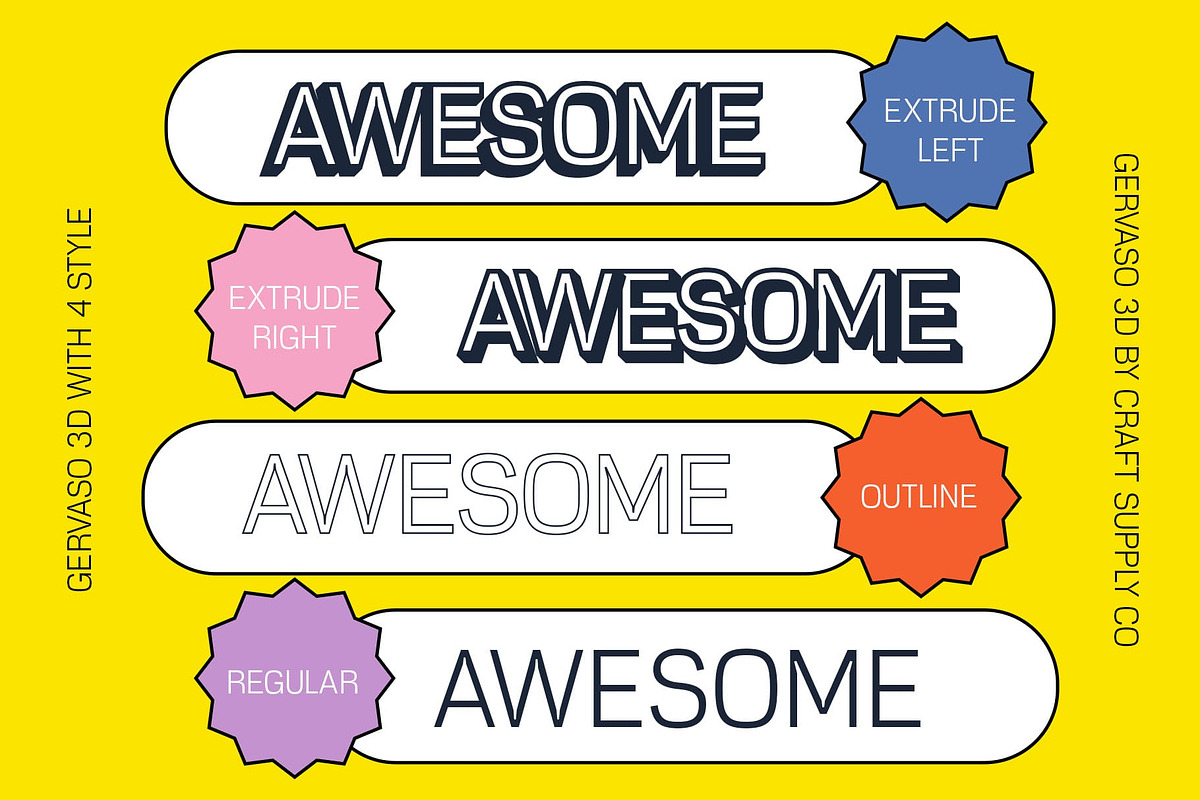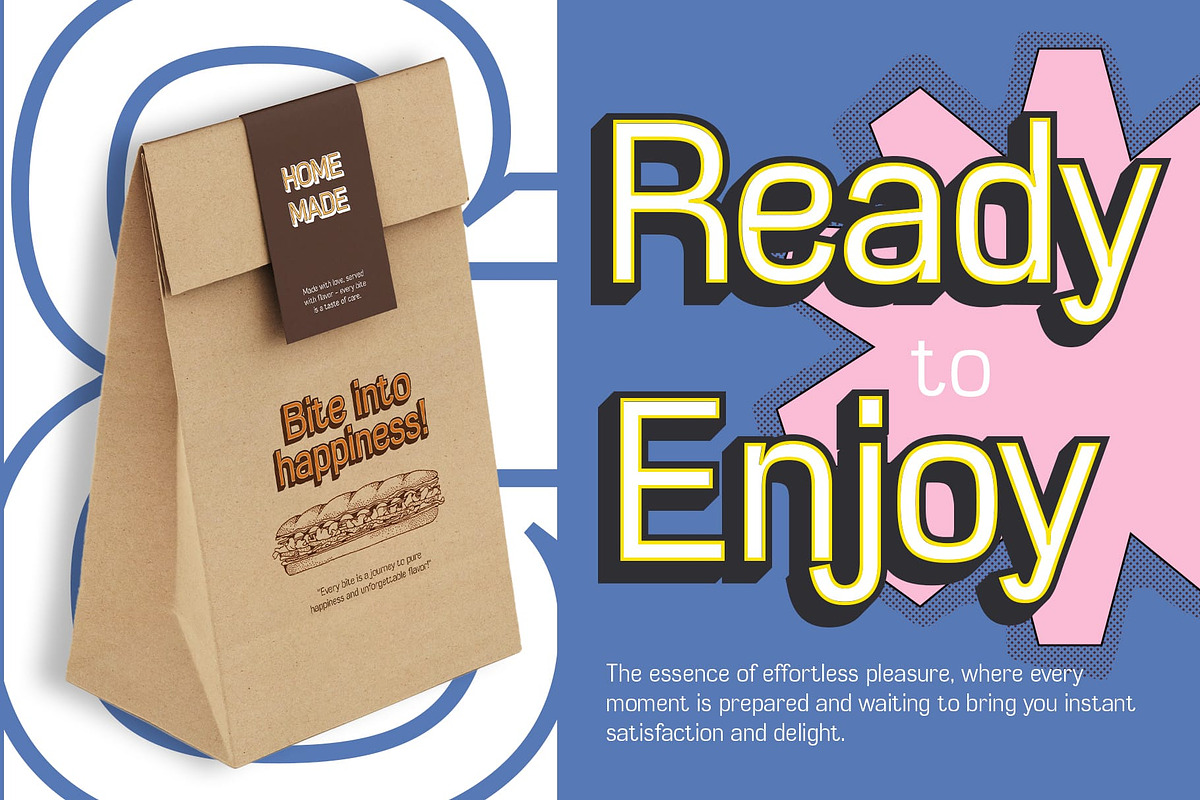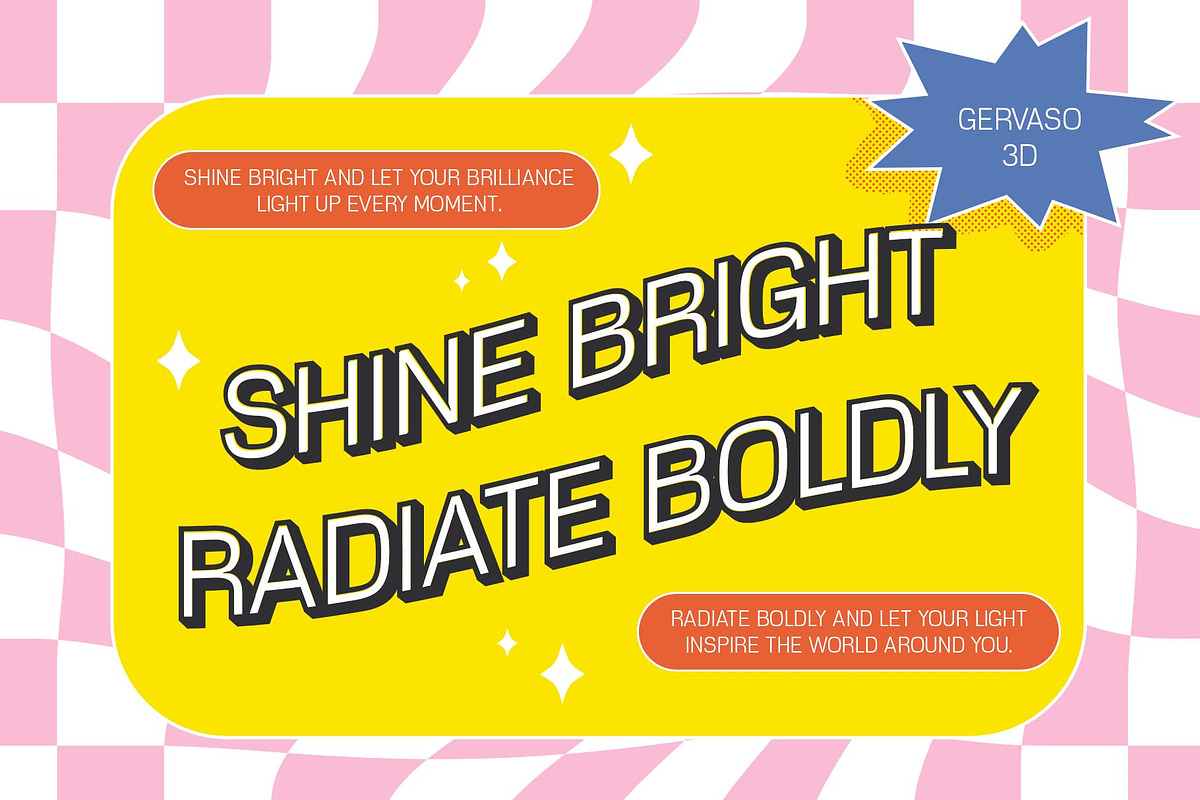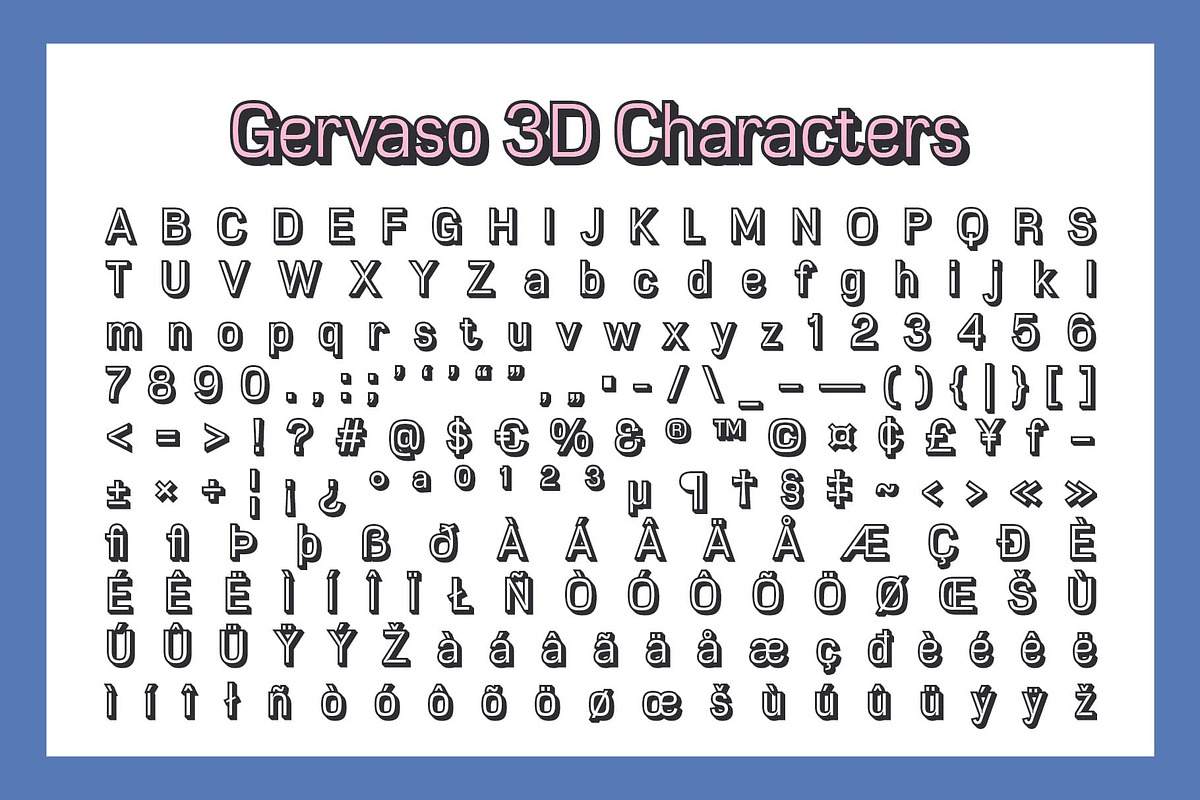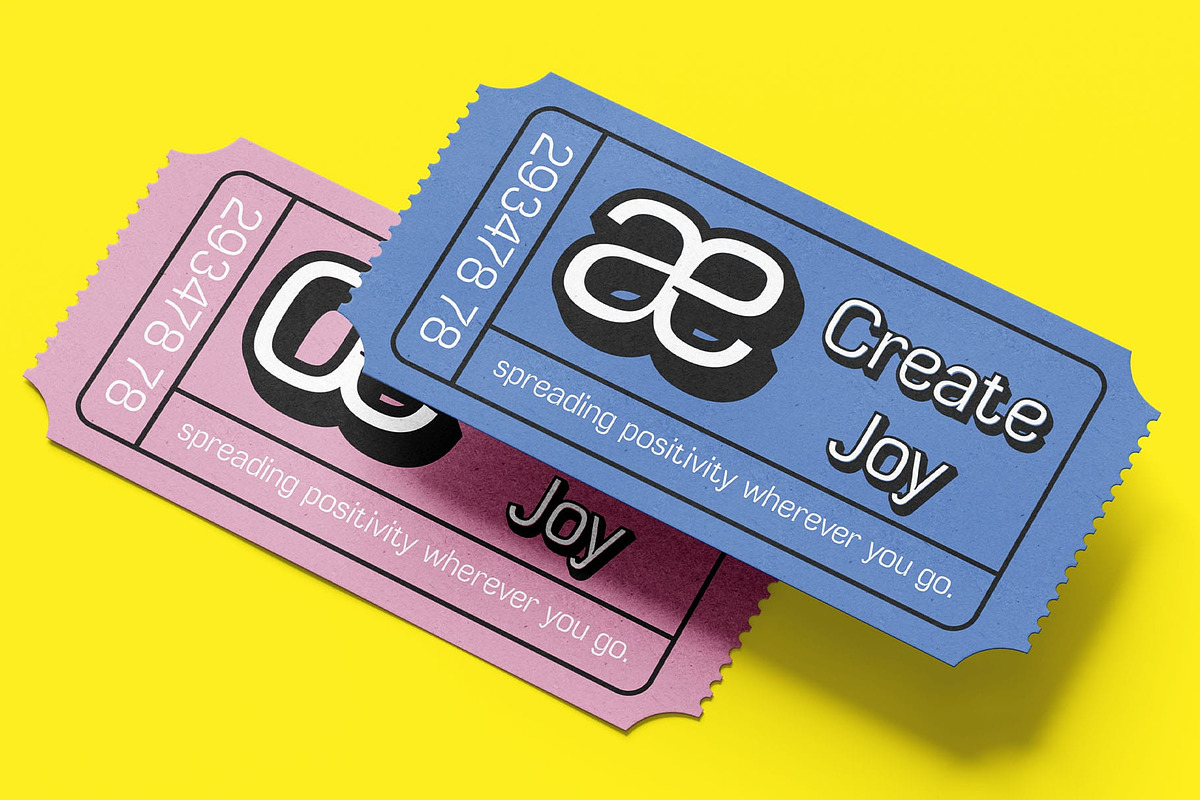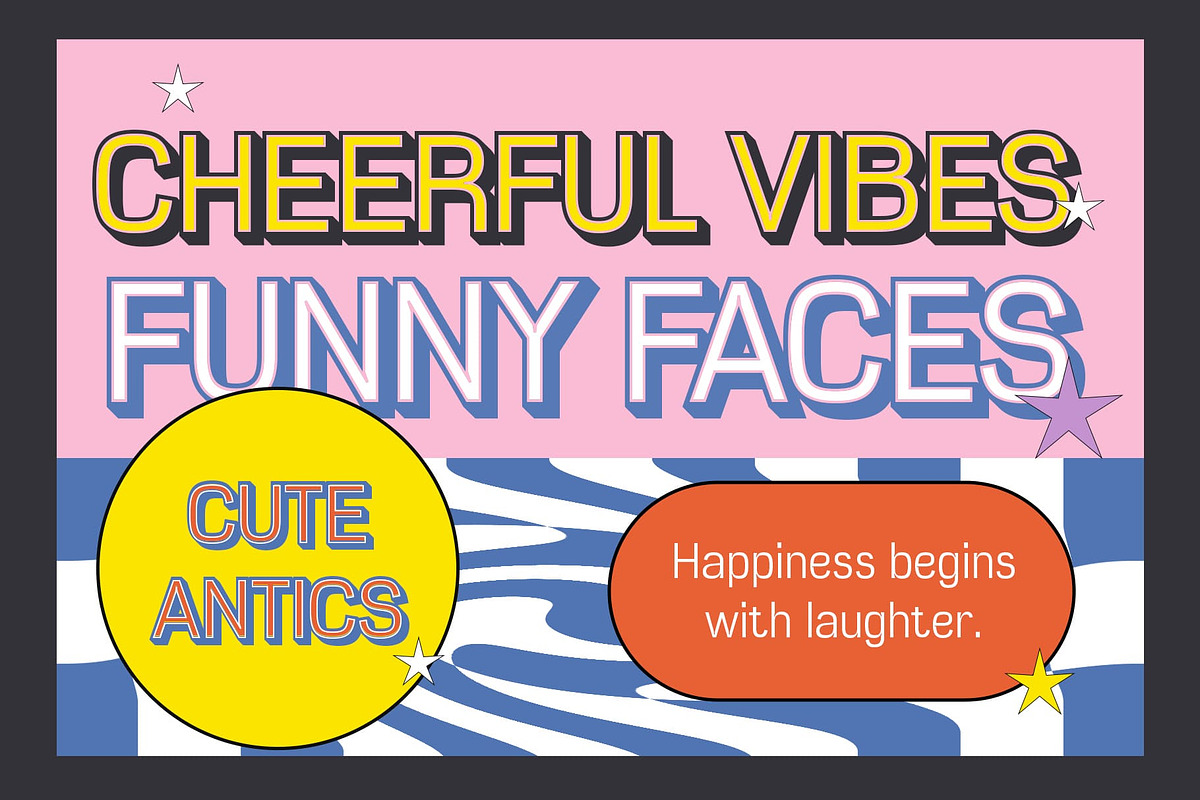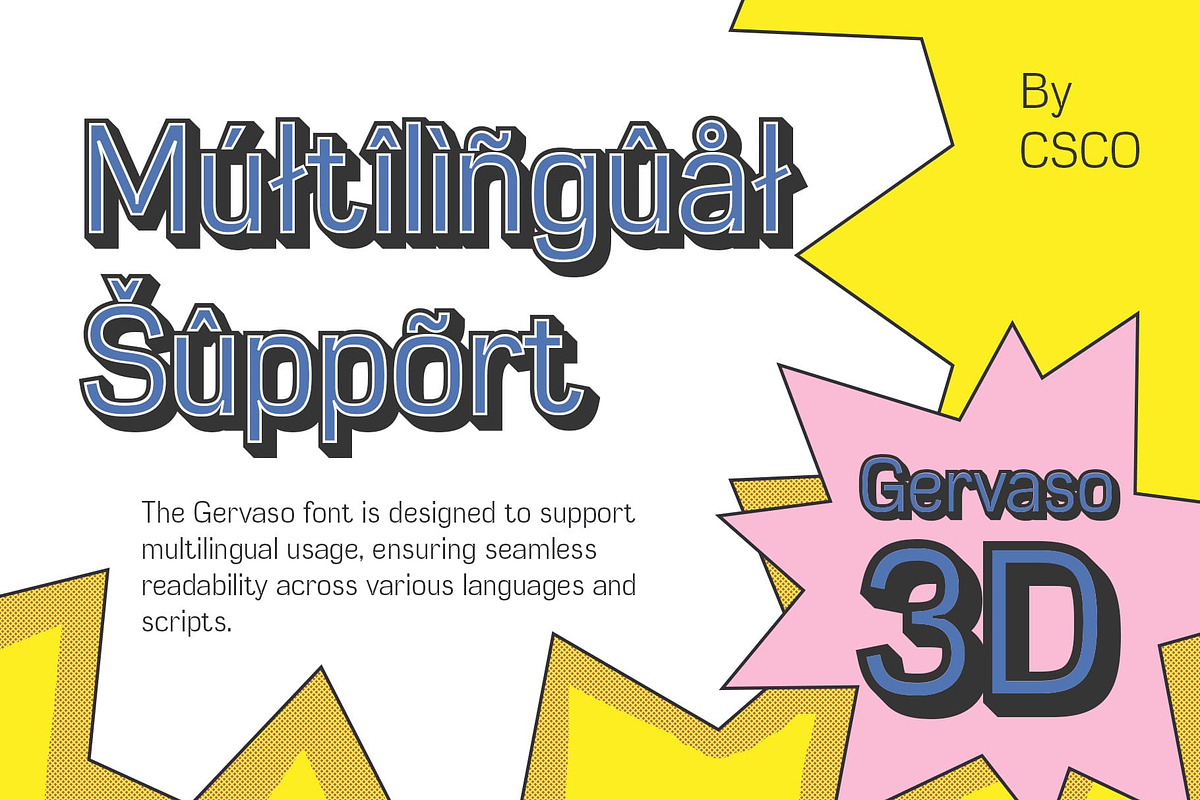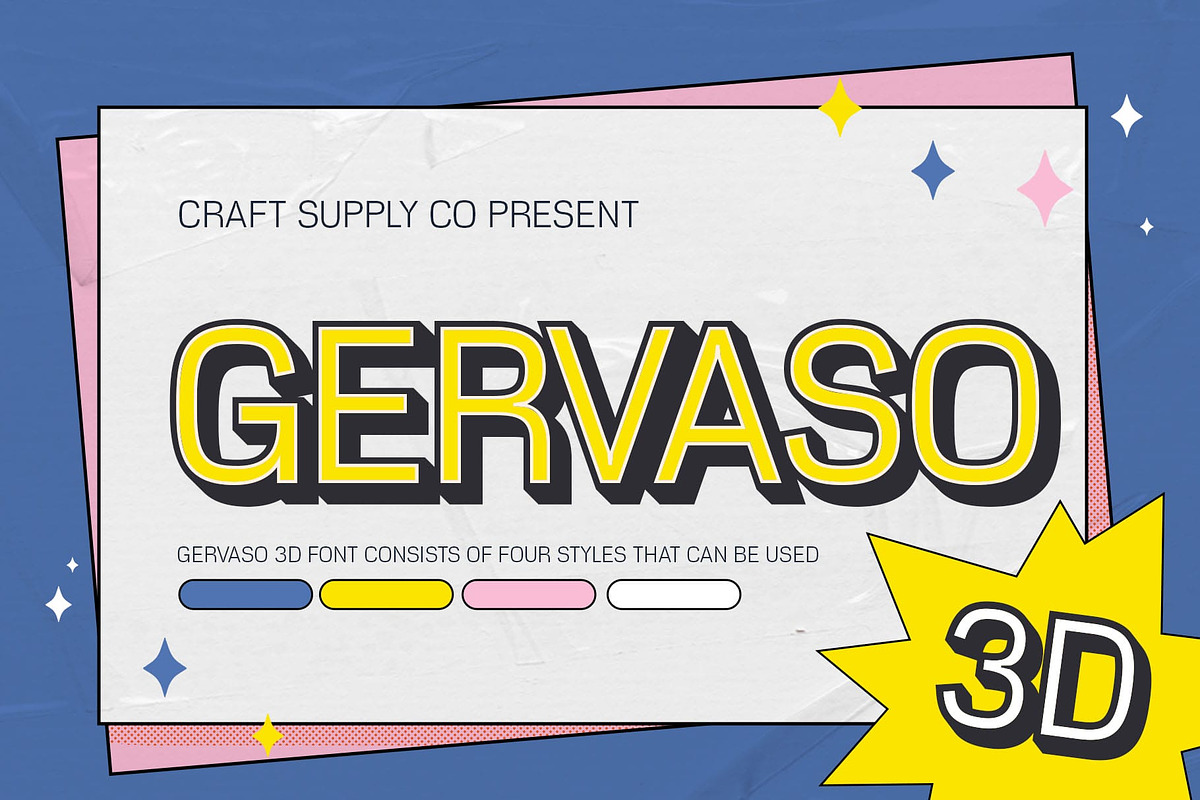
Gervaso 3D
Gervaso 3D Font: Bold and Futuristic Impact
Geometric Sans-Serif with a Bold Presence Gervaso 3D is a modern sans-serif font characterized by geometric and grotesque forms, delivering a clean, sharp aesthetic with a striking visual impact. The combination of straight lines and angular curves gives this font a robust, contemporary feel, perfect for making a bold statement.
Striking 3D Effect for Enhanced Dimension The bold 3D effect elevates Gervaso 3D, adding dynamic depth and dimensionality to each character. This striking feature transforms a traditional sans-serif font into a visually engaging design tool, ensuring that your text stands out with futuristic appeal and modern sophistication.
Ideal for High-Impact Branding and Tech Designs Designed with modern branding and tech applications in mind, Gervaso 3D is ideal for projects that require a sleek, high-tech look. Whether you’re creating futuristic logos, cutting-edge websites, or eye-catching promotional visuals, this font delivers a strong presence that communicates innovation and forward-thinking.
Versatile for Contemporary and Edgy Designs Gervaso 3D is not just bold—it’s adaptable. Perfect for a wide range of contemporary design applications, from branding to tech visuals and high-impact advertisements, this font offers a clean yet edgy aesthetic that works across multiple mediums. Whether you’re creating impactful posters, digital interfaces, or product packaging, Gervaso 3D brings a futuristic edge to any design.
- Gervaso Regular
- Gervaso Outline
- Gervaso Extrude Right
- Gervaso Extrude Left